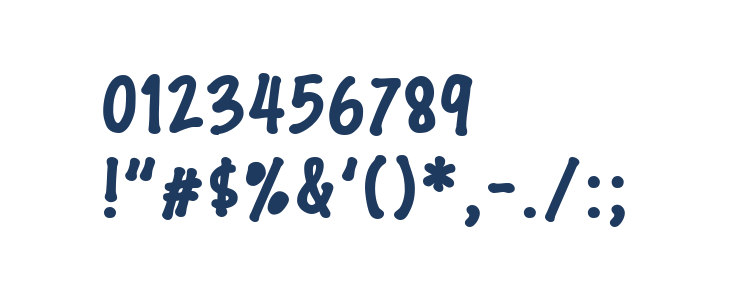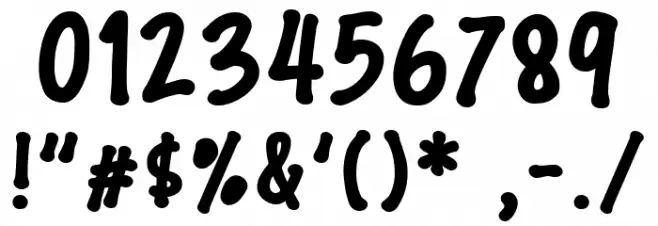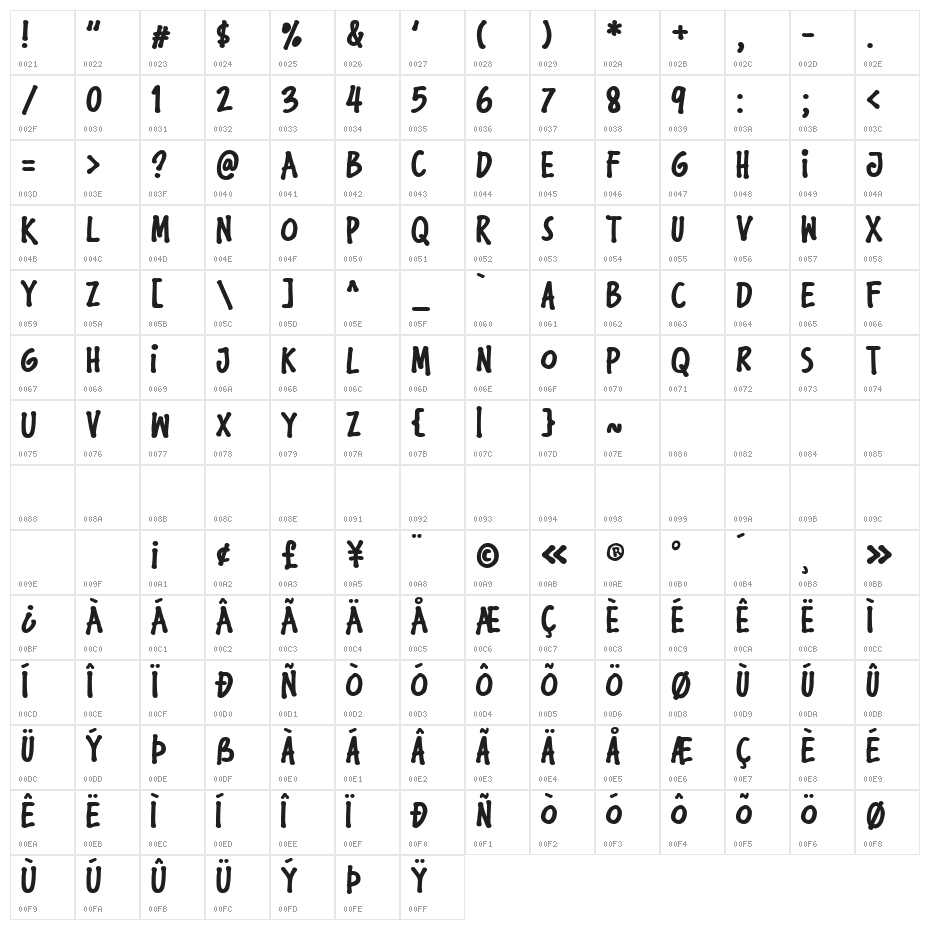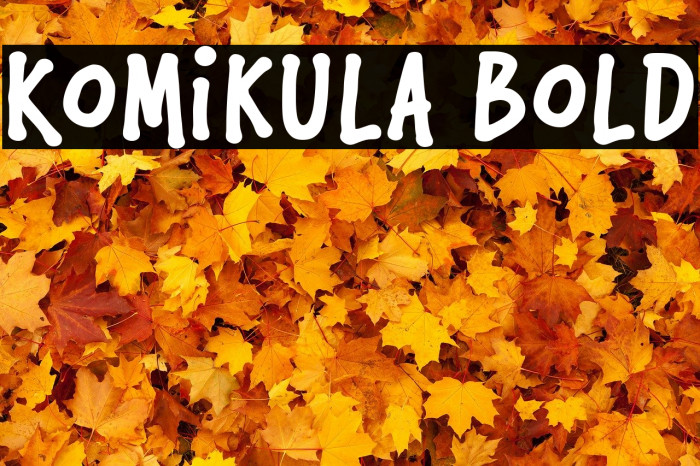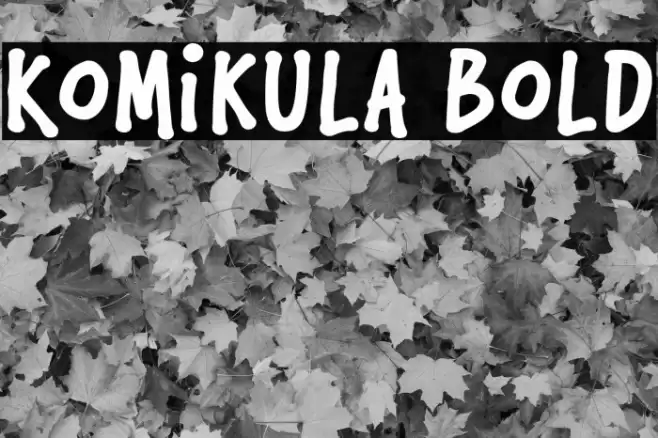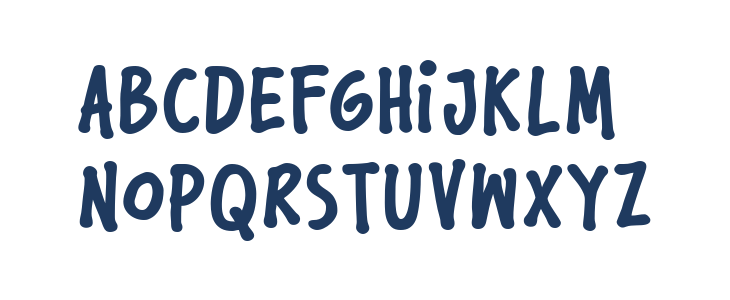
Komikula Bold Font
Komikula Bold Description
This playful and bold font features a hand-drawn aesthetic with rounded edges and a slightly irregular baseline, giving it a whimsical and informal appearance. The characters are thick and substantial, ensuring high visibility and readability. The font's style is reminiscent of comic book lettering, with a friendly and approachable vibe. It includes a full set of uppercase and lowercase letters, numbers, and a variety of special characters, making it versatile for different design needs. The overall look is casual yet impactful, suitable for projects that require a fun and engaging typeface.
| Overall Style | Playful, Informal |
| Proposed Projects | Ideal for children's books, comic strips, playful branding, and casual event invitations. |